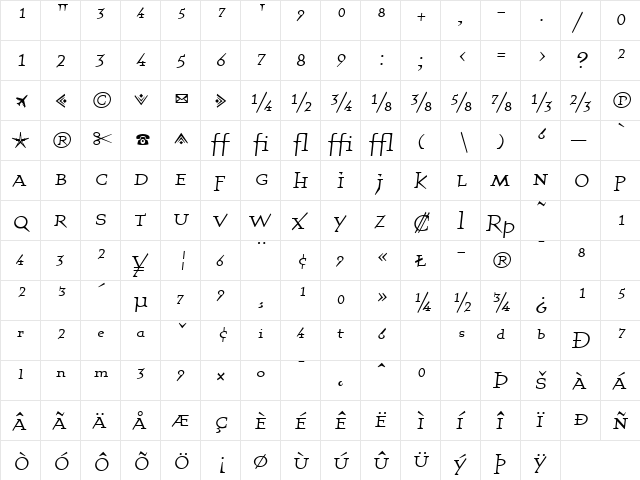
QuartetFractionsRegular Regular
Design Context for QuartetFractionsRegular Typeface
QuartetFractionsRegular takes a measured approach to typography — its balanced proportions and neutral character make it a reliable workhorse for both digital and print work.